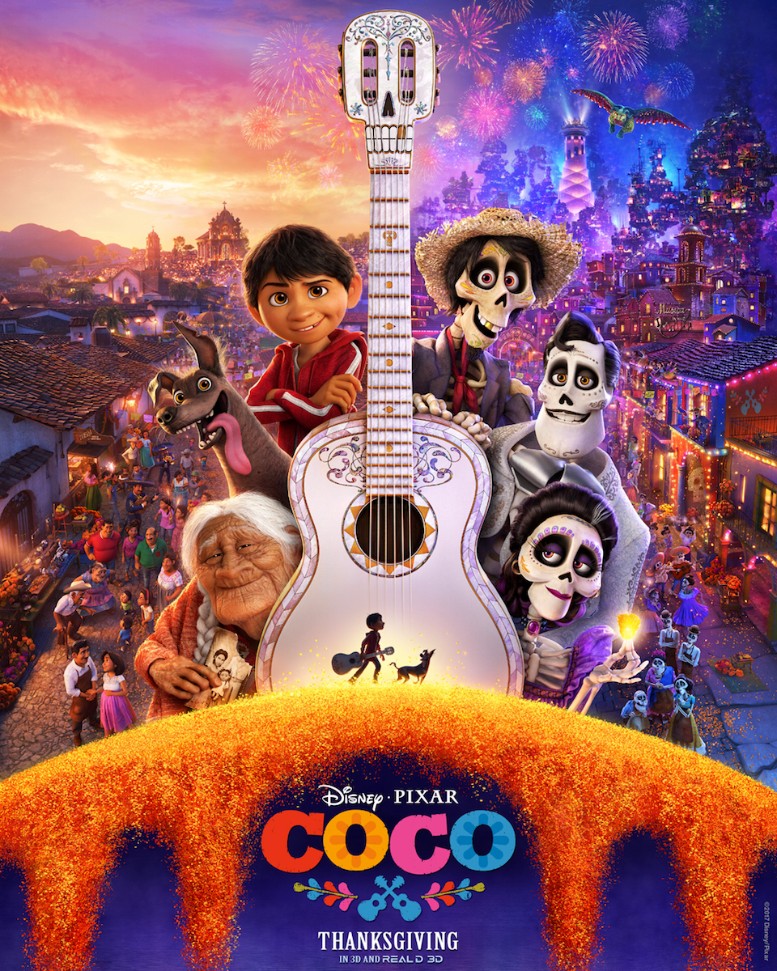
Coco [Movie] Font
AnimationCoco is a Pixar animated film about a young boy named Miguel who is transported to the Land of the Dead, where he meets his deceased ancestors and learns about the importance of family and tradition.
The Coco title uses a geometric slab serif typeface called Rockwell Extra Bold. This geometric slab serif was designed by Monotype in 1934, based on an earlier typeface, Litho Antique, dating back to 1910. Alternatively, you can use a free font like Ultra from Astigmatic or Rokkitt Black by Vernon Adams to replicate the logo.